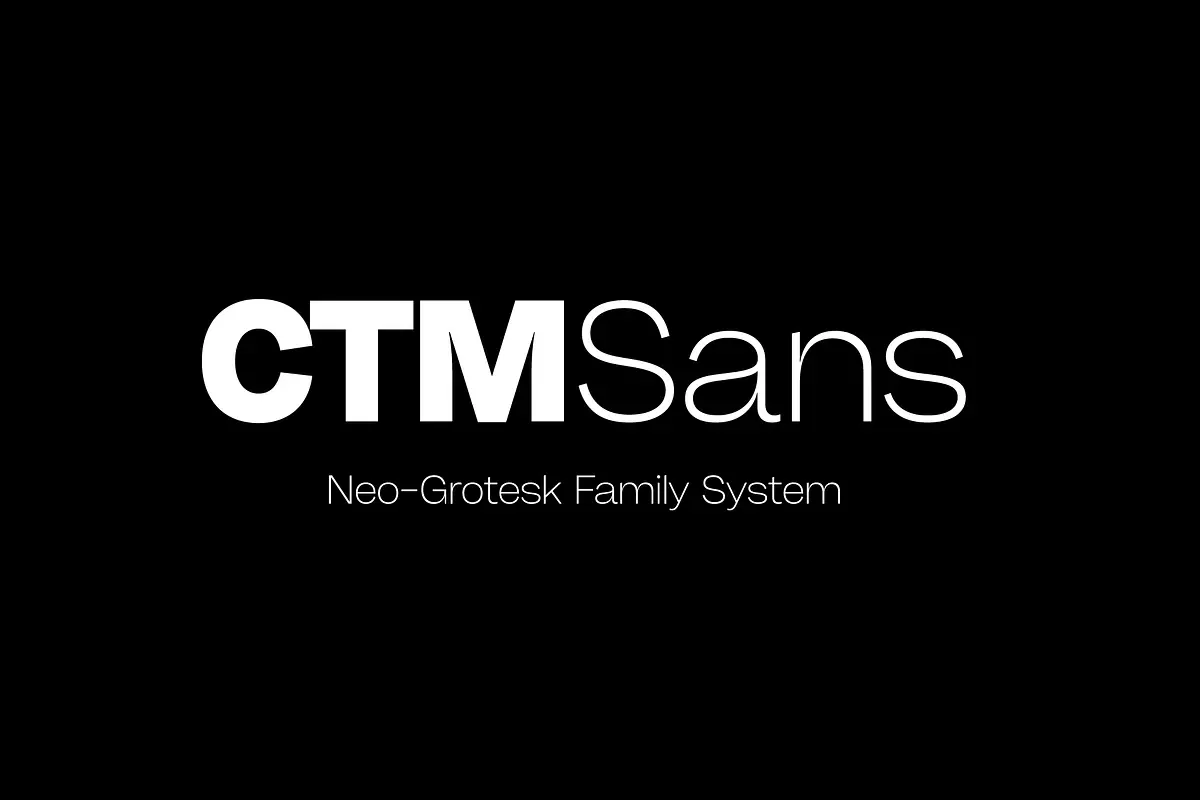
CTM Sans Font Free Download is a clean, modern sans serif typeface crafted for clarity and versatility across digital and print applications. Perfect for branding, editorial use, web design, and corporate materials, CTM Sans offers a professional, minimalist aesthetic that enhances readability and impact. Please note that you must purchase this font for commercial use, but it is available as a free download for testing purposes. Whether you're building a brand identity or designing user interfaces, CTM Sans Font Free Download delivers sleek, dependable typography for every creative need.